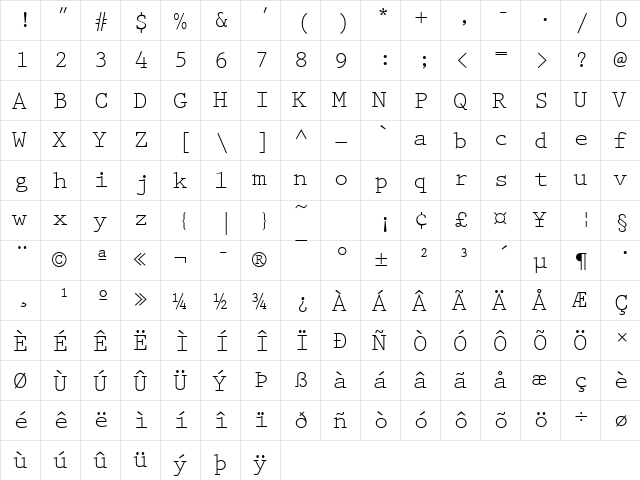
PrestigeEliM Regular
Design Context for PrestigeEliM Typeface
PrestigeEliM takes a measured approach to typography — its balanced proportions and neutral character make it a reliable workhorse for both digital and print work.